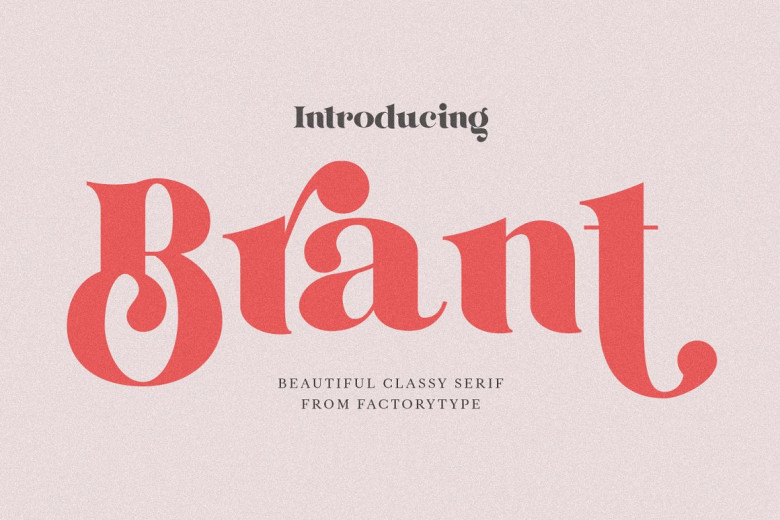
Brant Font
More designs for logos and trademarks, BRANT is a modern style that uses classic serifs.In spite of its curved look, it has an air of opulence and elegance.Combine the weights to get either of these colors. Or mix and match them all to taste a whole new hue for your typefaces. For anything you can think of, this ligature and alternative native apps will surely come in handy!
Brant Serif Font